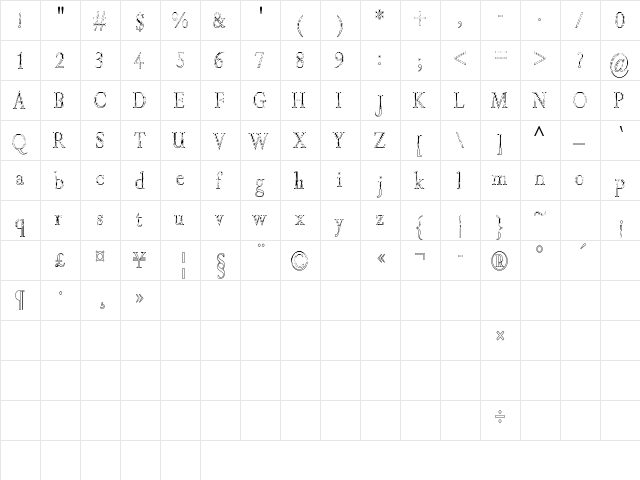
Roman Flames Regular
| Designer | jbensch |
Design Context for Roman Flames Typeface
Roman Flames takes a measured approach to typography — its balanced proportions and neutral character make it a reliable workhorse for both digital and print work.